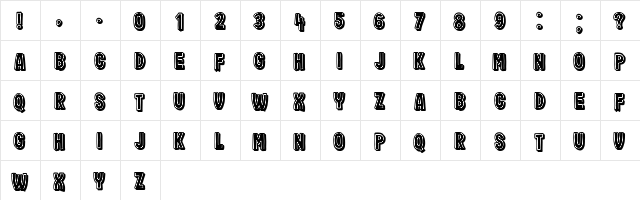
Impressum Shadow Filled Regular
Design Context for Impressum Shadow Filled Typeface
Impressum Shadow Filled is built around its visual character rather than neutral utility — its distinctive forms are designed to make an impression at display sizes.
Font Pairing: Pair with a clean neutral sans-serif for body copy to let Impressum Shadow Filled's character lead without overwhelming the composition.
Pro Tip: Treat Impressum Shadow Filled as the centrepiece of your typographic hierarchy. One strong heading set in a decorative face can carry an entire layout.